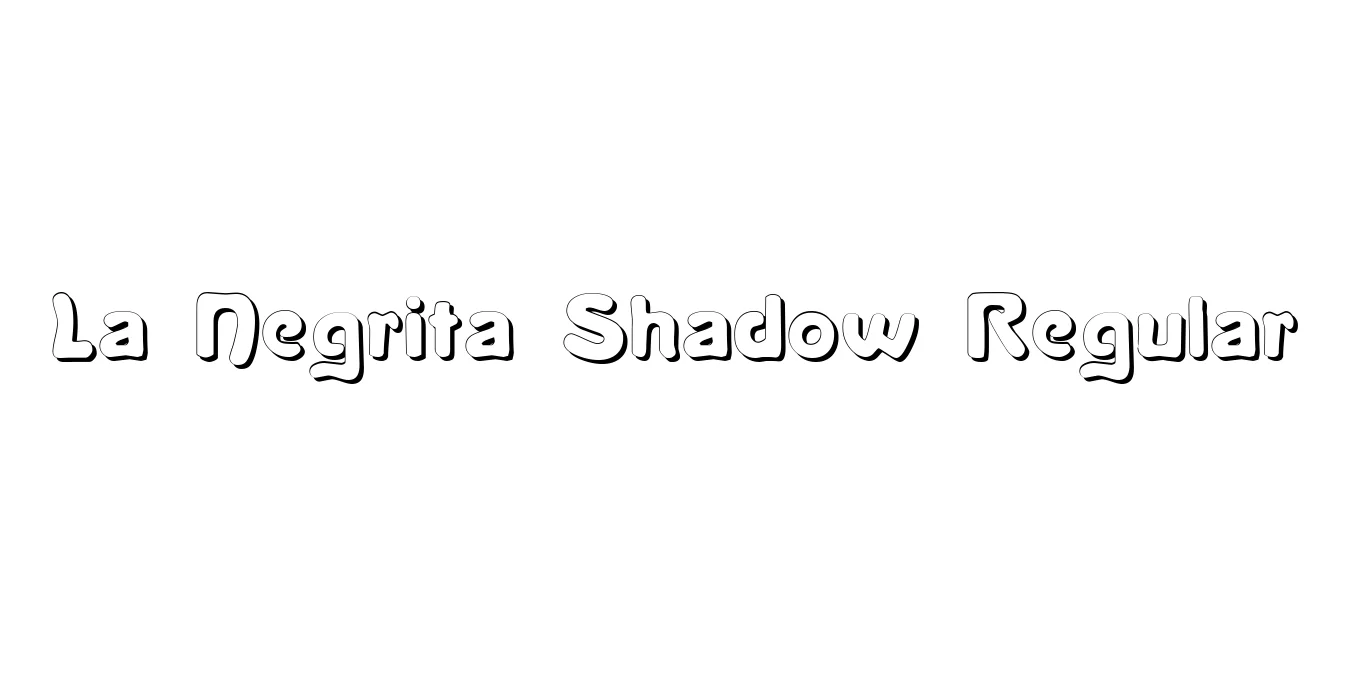
La Negrita Shadow Regular
Designed by Diego Quintana
| Font Name | La Negrita Shadow |
| Designer | Diego Quintana |
La Negrita Shadow Regular is a bold, expressive display typeface deeply rooted in the vibrant visual culture of Latin American street art and traditional hand-painted signage. Designed to capture immediate attention with its heavy weight and rhythmic character forms, this font represents a modern interpretation of classic vernacular lettering. The inclusion of the shadow effect provides a striking three-dimensional quality, making it a standout choice for designers looking to inject energy and a sense of history into their typographic layouts.
Functionally, the font excels in large formats where its intricate details and high-contrast shadow can be fully appreciated. It is frequently utilized in retro-themed posters, high-impact advertising, and cultural branding projects. Its robust construction ensures legibility despite its decorative nature, allowing it to bridge the gap between artistic expression and commercial utility. Whether used for a music festival flyer or a boutique brand identity, La Negrita Shadow Regular offers a unique blend of heritage and contemporary style.
Ideal for high-impact event posters and street-style advertising flyers.
Perfect for brands seeking a bold, vintage, or culturally-rich identity.
Excellent for large, attention-grabbing titles in editorial layouts.
Adds a dynamic 3D feel to digital quotes and graphic overlays.